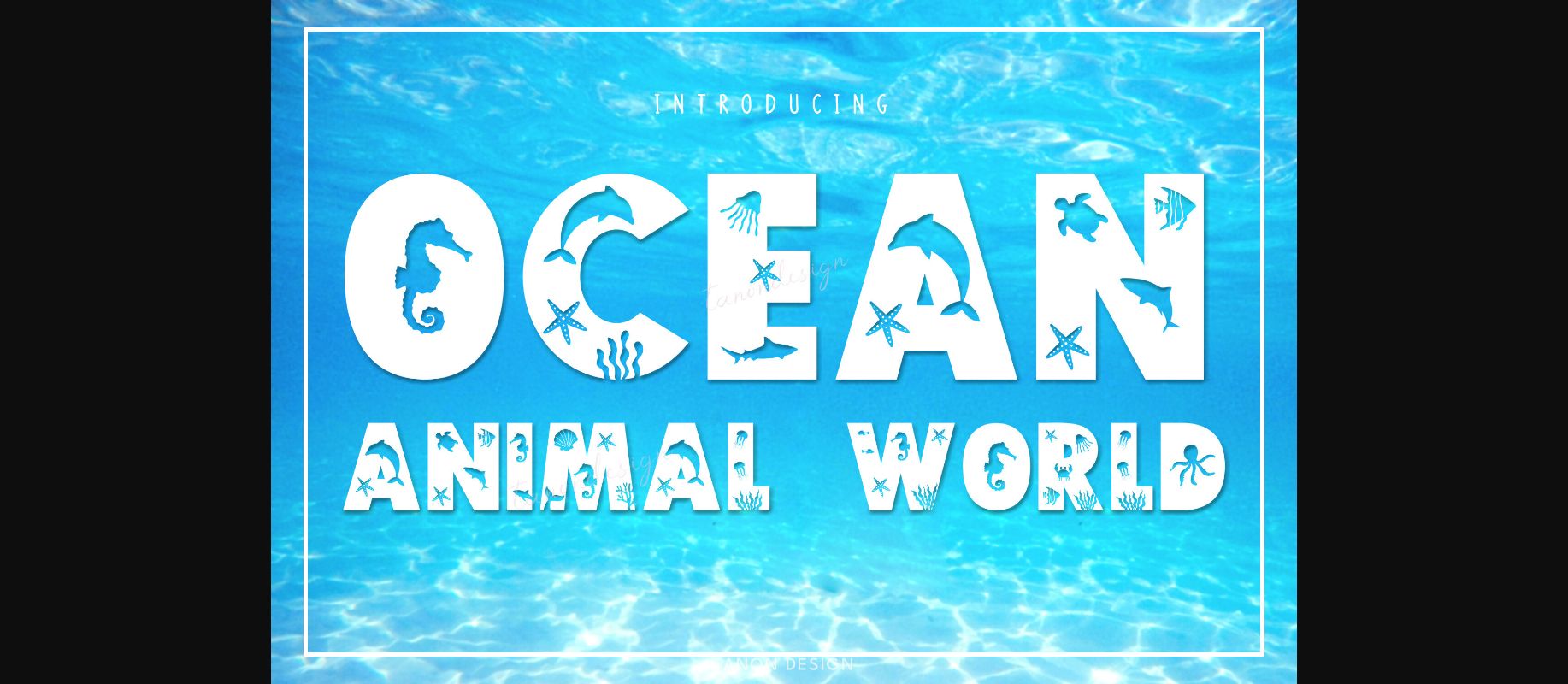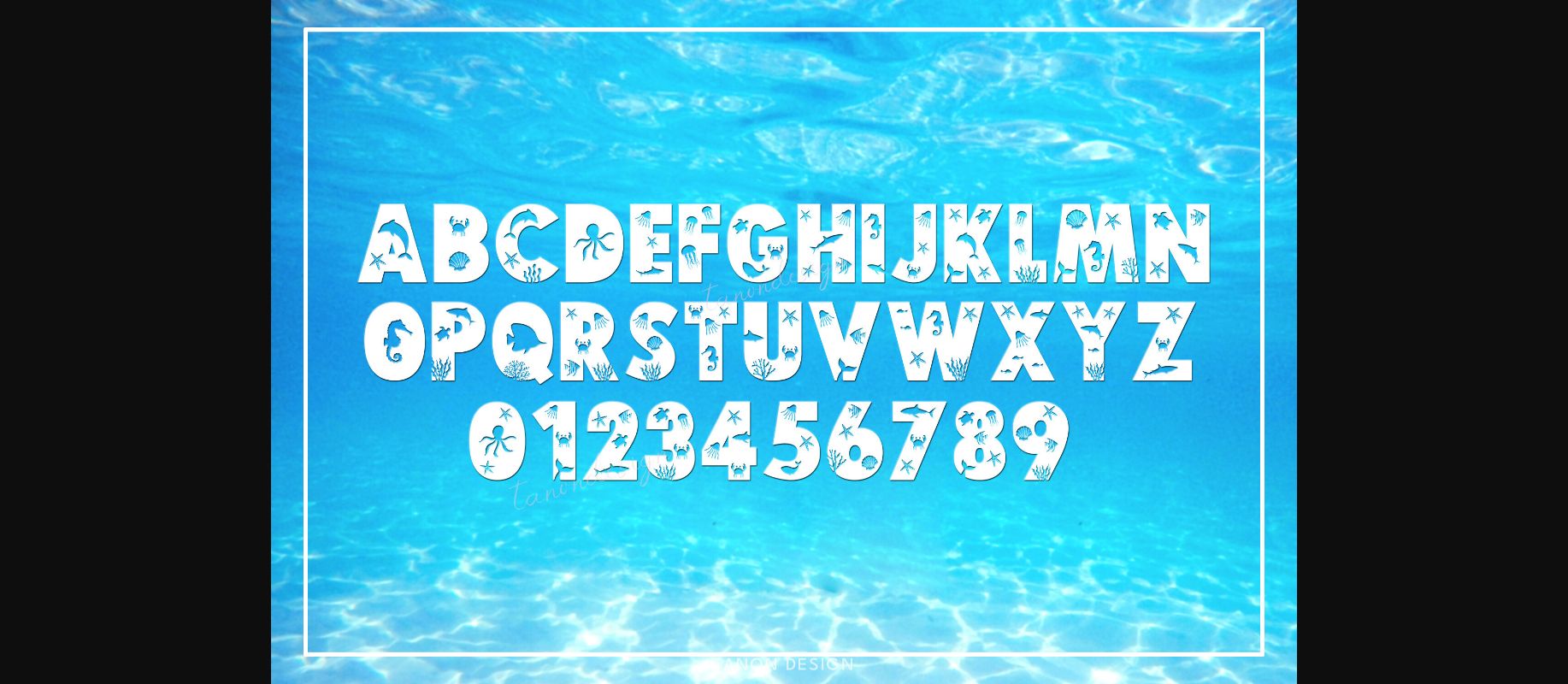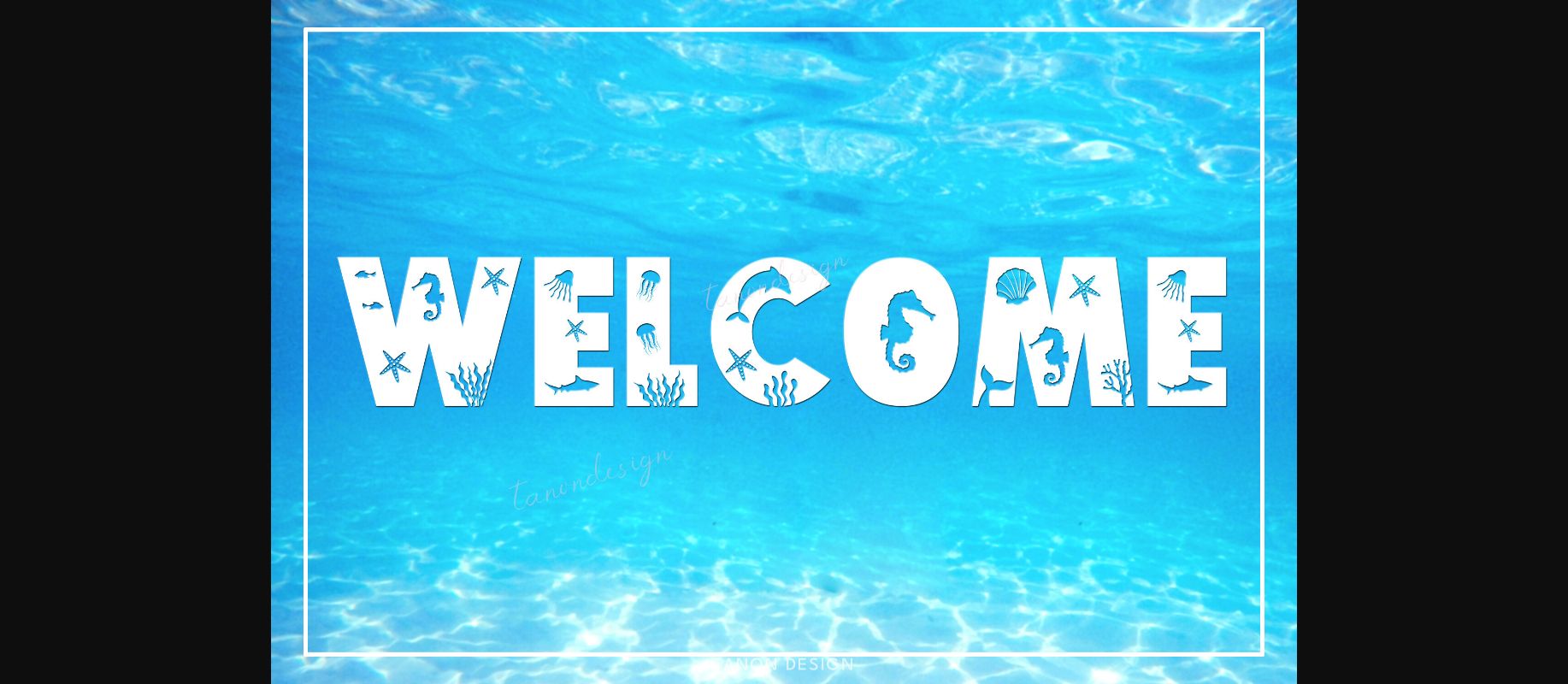
HomeDecorative FontsOcean Animal World Font Decorative Fonts Ocean Animal World Font FacebookXPinterestWhatsApp 1 of 5 ... Ocean Animal World Font Poster 2... Ocean Animal World Font Poster 3... Ocean Animal World Font Poster 4... Ocean Animal World Font Poster 5... About Ocean Animal World Font Ocean Animal World is a cute and beautiful decorative font. It will look fantastic on all your project designs including t-shirt designs, mug designs, digital designs, crafts, cards, and any projects! DOWNLOAD NOW People also explored Kamelkys Simple Signature Font Black Midnight Font Realistic Mock-ups on Vintage Background Eduardo and Aurelia Font Athena River Font Rosefetina Font Blackout Sallas Font 770 0 TagsOcean Animal World Font Previous articleFloral Sweet FontNext articleCat Font LEAVE A REPLY Cancel reply Comment: Please enter your comment! Name:* Please enter your name here Email:* You have entered an incorrect email address! Please enter your email address here Website: Save my name, email, and website in this browser for the next time I comment. Personal Use Free BD Fluke Personal Use Free Read more about this font Lixdu Personal Use Free Read more about this font BD Spinner Personal Use Free Read more about this font DangeRNighT Font Personal Use Free Read more about this font BLOG Free vs Paid Fonts: Why Investing in Premium Fonts Is Worth It Free vs Paid Fonts: Why Premium Fonts Are Worth It in 2025 The debate of free vs paid fonts continues in the design world. While... Elegant Wedding Invitation Fonts – Handwritten & Script Fonts Fonts That Capture the Spirit of New York City The 10 Best Handwriting Fonts to Add Personality to Your Designs